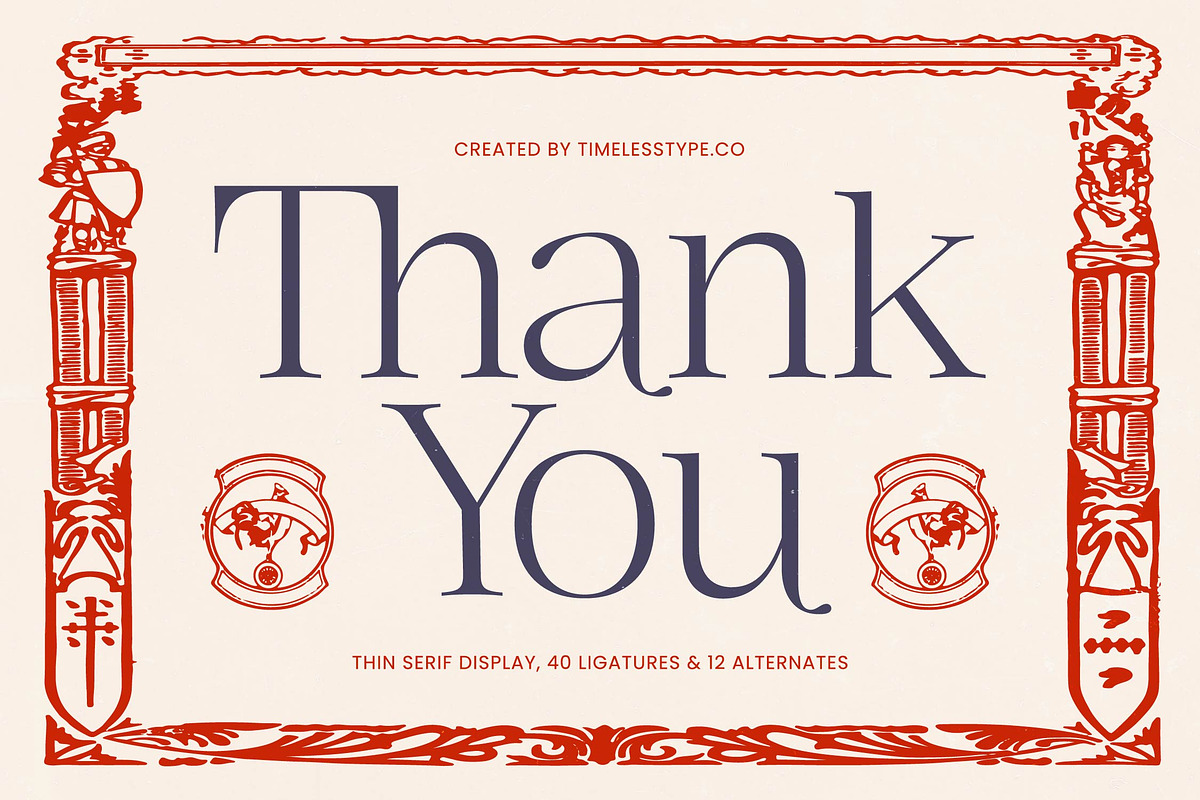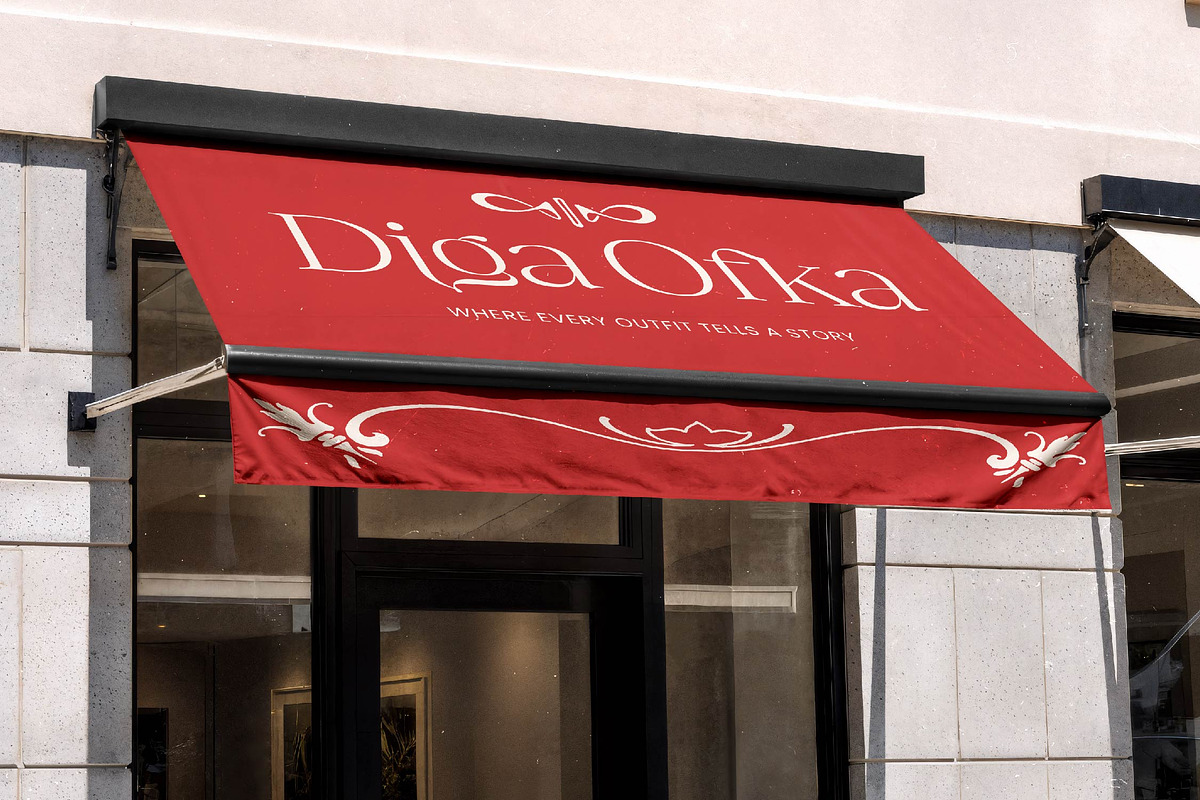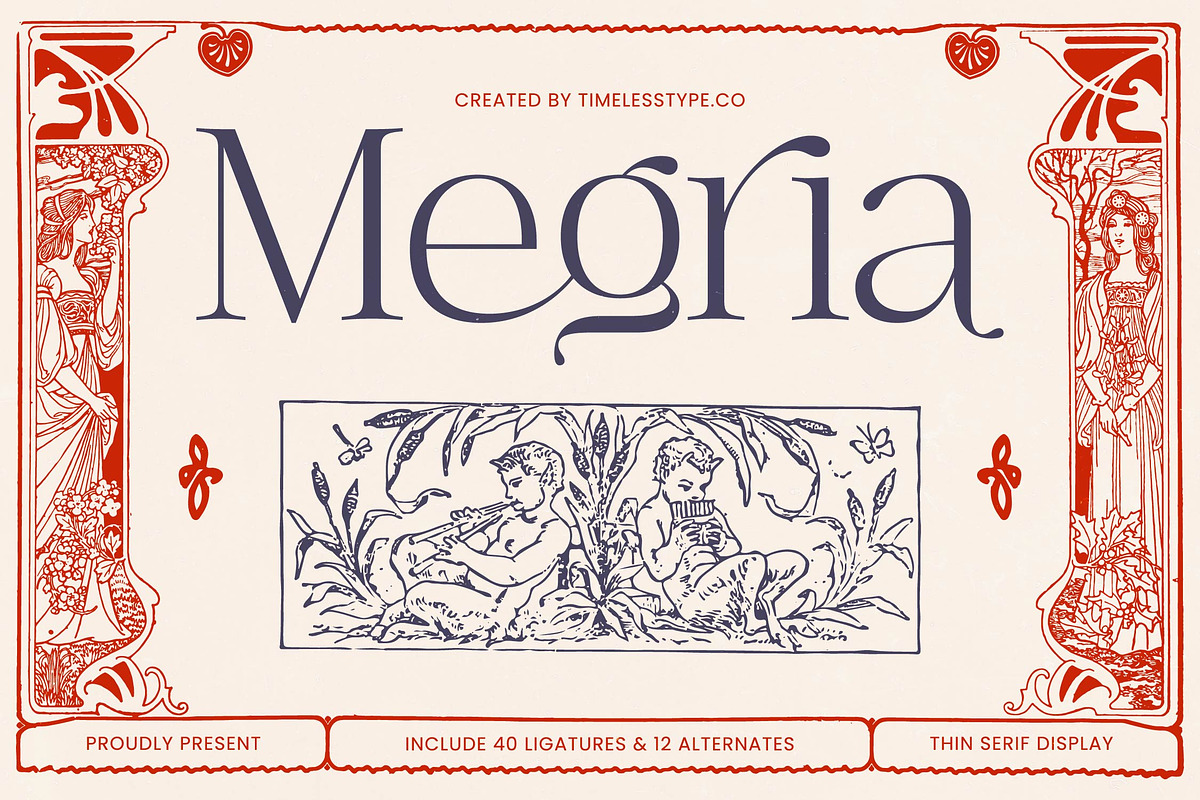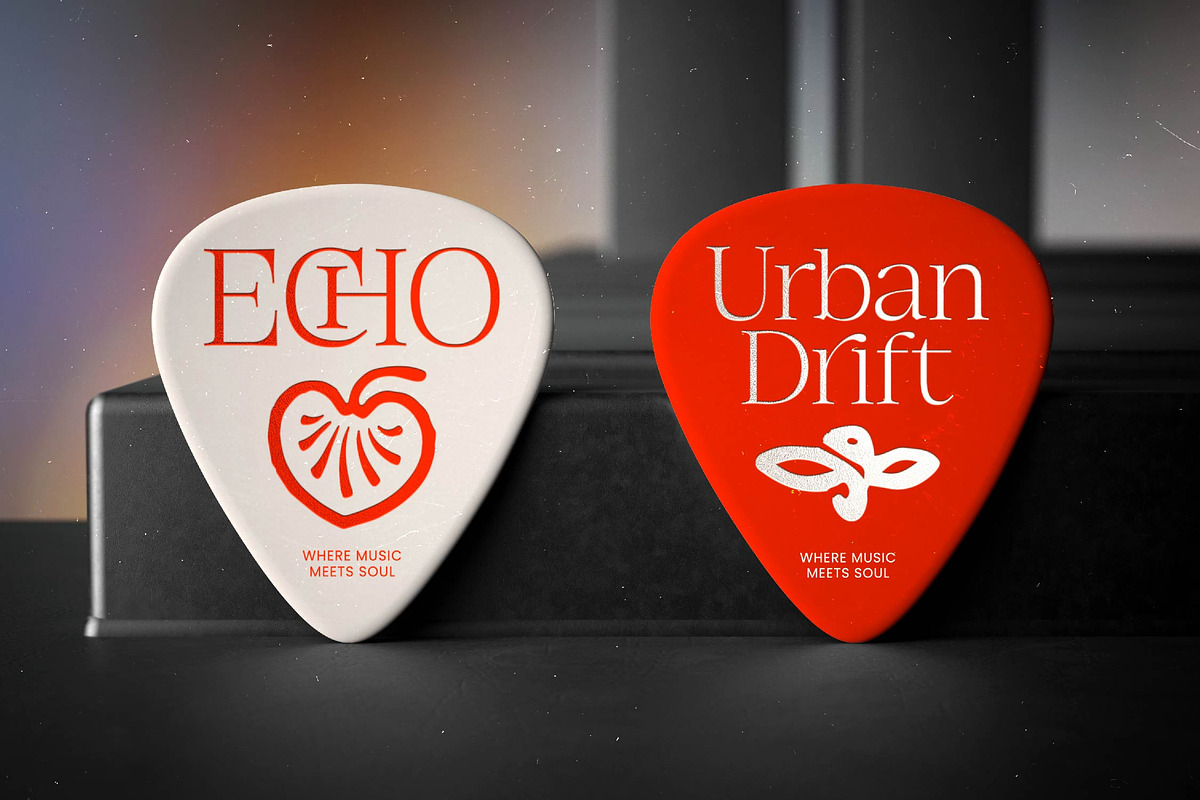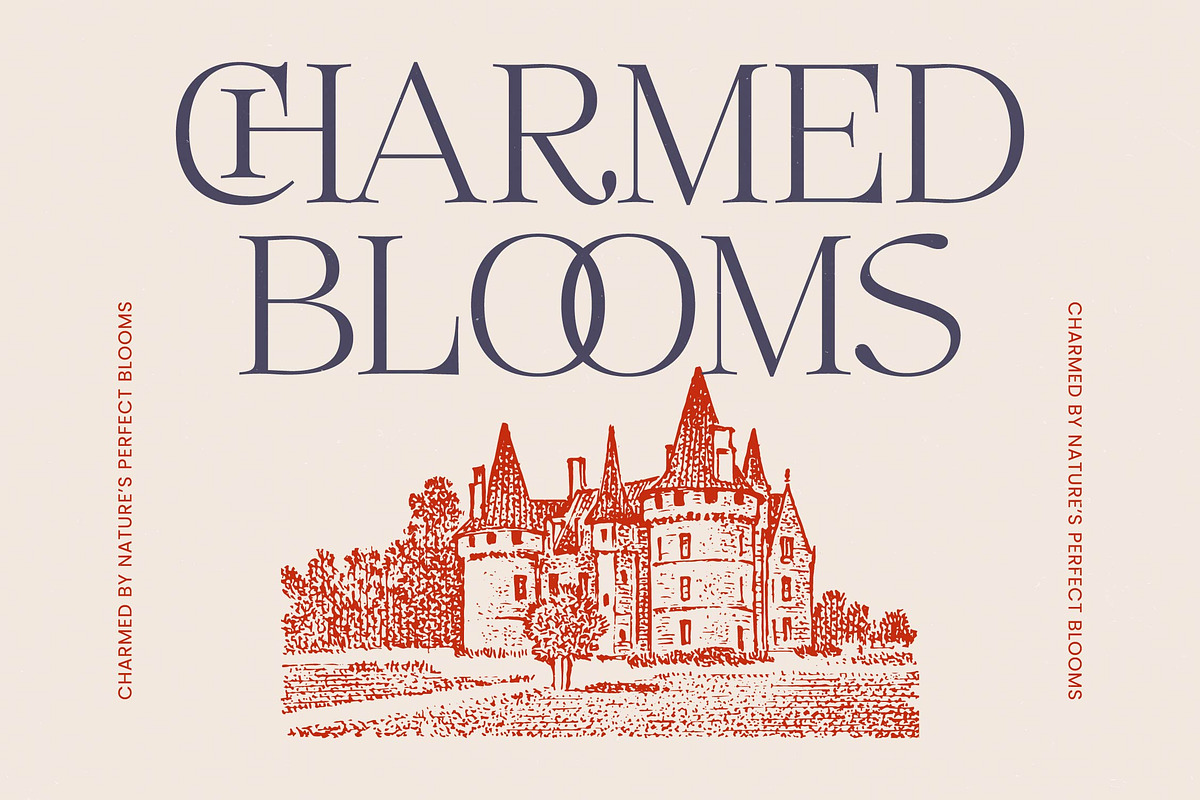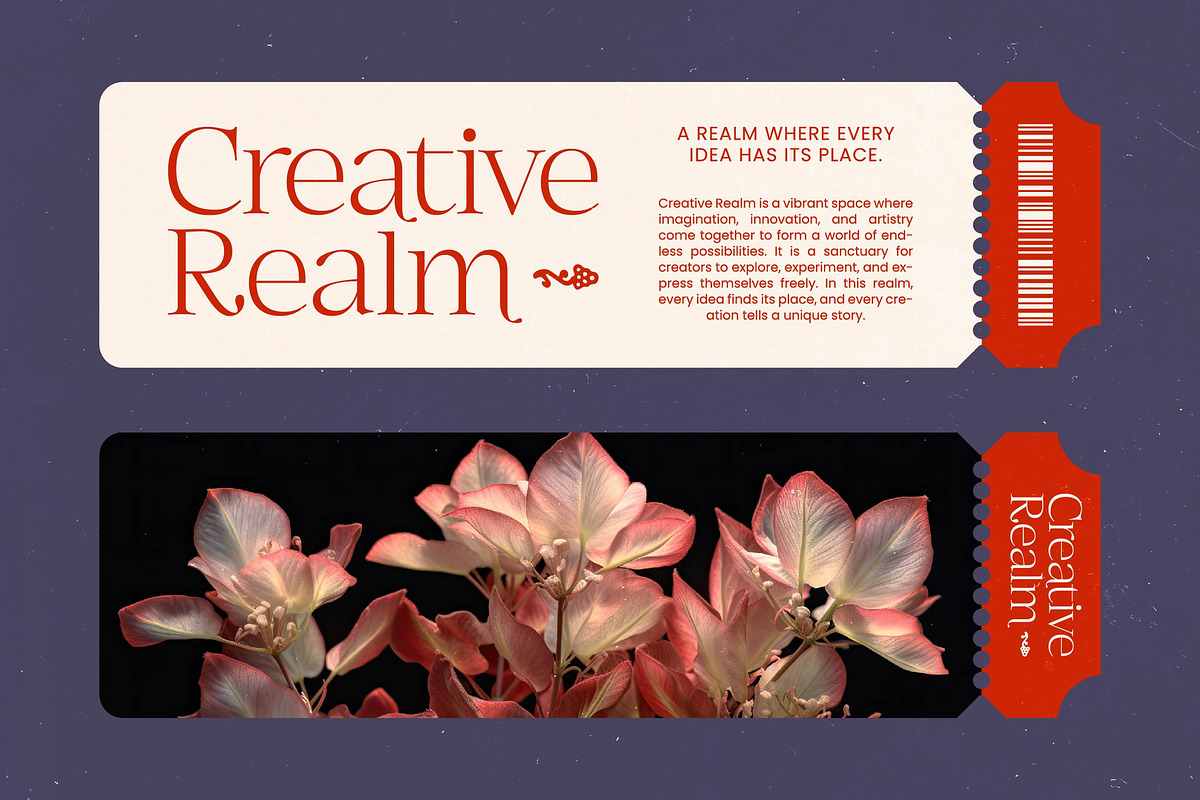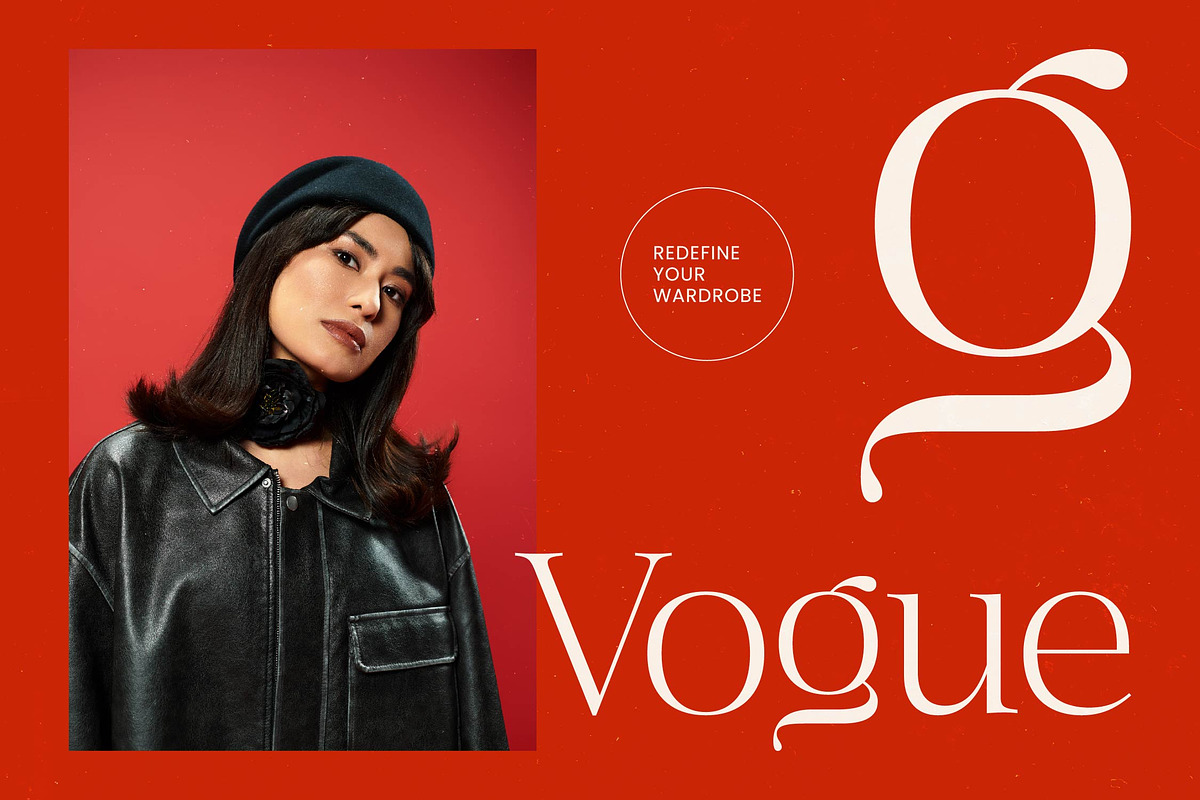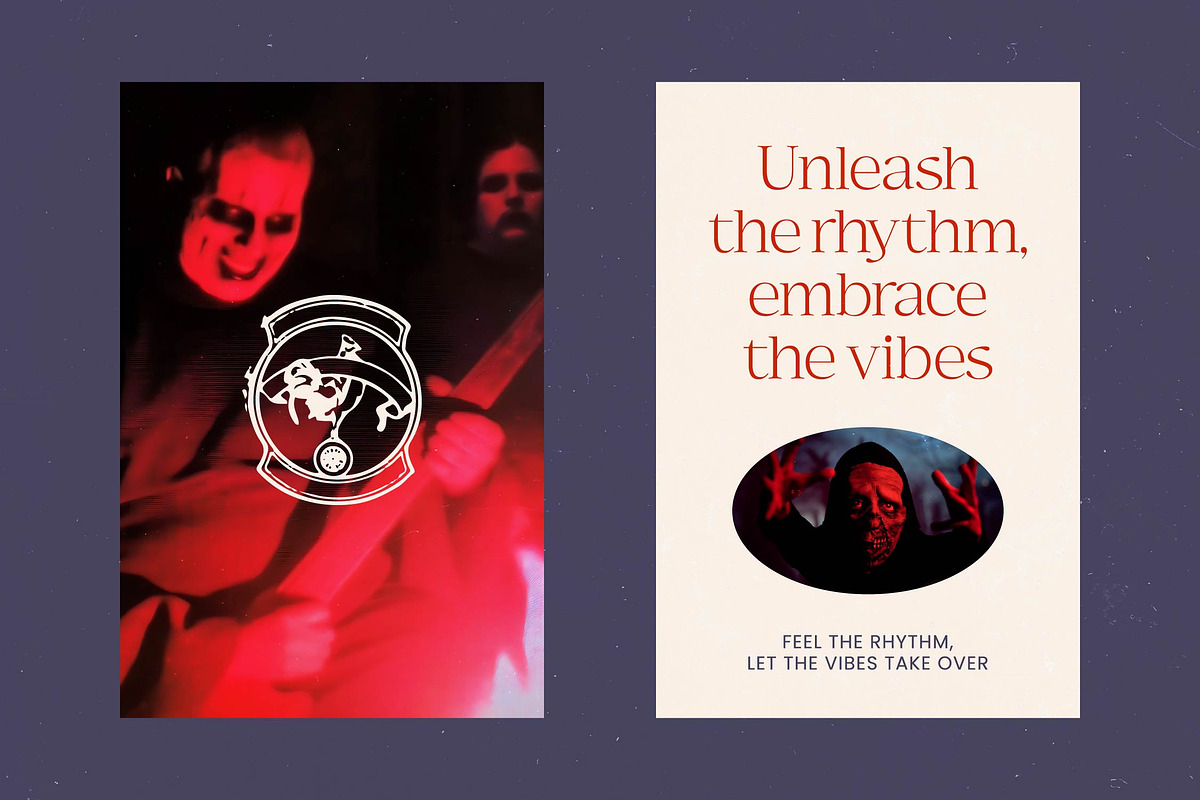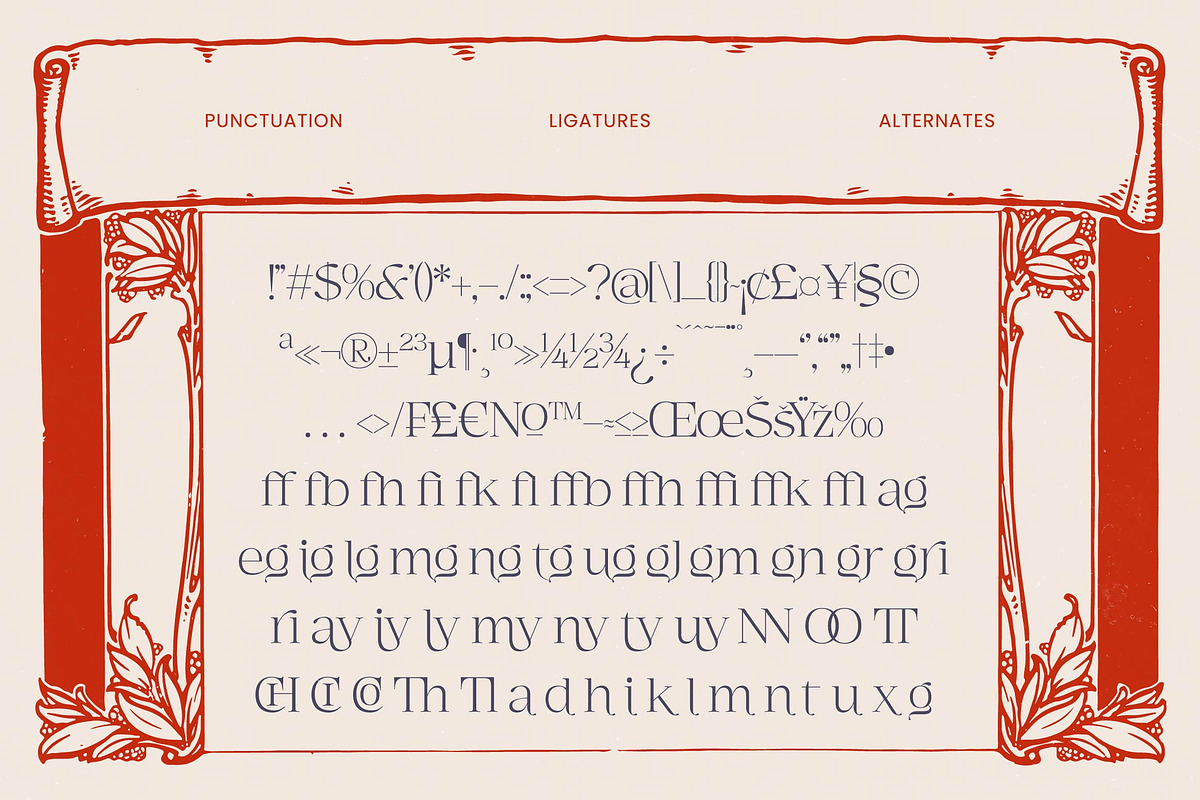
Megria Elegant Thin Serif Display
Megria – Elegant Thin Serif Display Typeface , Elevate your creative projects to new heights of sophistication with the Megria – Elegant Thin Serif Display Typeface. This high-contrast serif captures a rare balance between classic elegance and modern refinement, making it an essential tool for designers seeking a premium aesthetic. With its delicate linework and graceful silhouettes, Megria – Elegant Thin Serif Display Typeface offers an artistic flair that commands attention without overwhelming the viewer.
Transform your brand identity into a definitive statement of luxury and grace. Megria – Elegant Thin Serif Display Typeface is the perfect choice for luxury branding, high-end packaging, and upscale editorial design. It is particularly perfect for fashion magazines, jewelry catalogs, and bespoke wedding invitations where a sophisticated typographic voice is paramount. By choosing Megria – Elegant Thin Serif Display Typeface, you ensure your designs resonate with prestige and timeless style.
Expand your creative reach across borders with ease and professional confidence. With its extensive multilingual support, Megria – Elegant Thin Serif Display Typeface adapts seamlessly across global markets, making it incredibly versatile for international projects. This global compatibility ensures that your marketing collateral maintains its visual consistency and aesthetic appeal regardless of the language, positioning Megria – Elegant Thin Serif Display Typeface as a truly versatile asset for any multinational brand.
Experience the perfect fusion of classic craftsmanship and modern functionality in every character. Megria – Elegant Thin Serif Display Typeface includes 40 specialized ligatures and 12 unique alternates, allowing for unparalleled customization and creative freedom. Whether you are crafting a distinctive logo or compelling headlines, Megria – Elegant Thin Serif Display Typeface provides the typographic depth needed to create a memorable visual experience that stands the test of time.
Numerals
Punctuations (OpenType Standard)
Accents (Multilingual Characters)
Ligatures and Alternative Style Stylistic Set